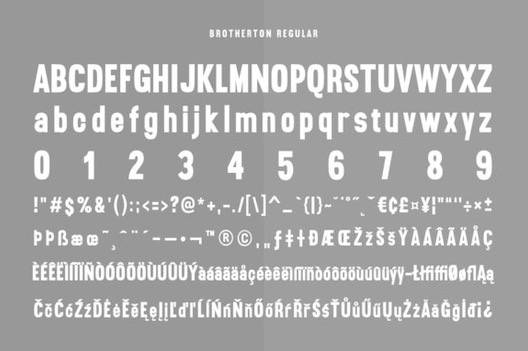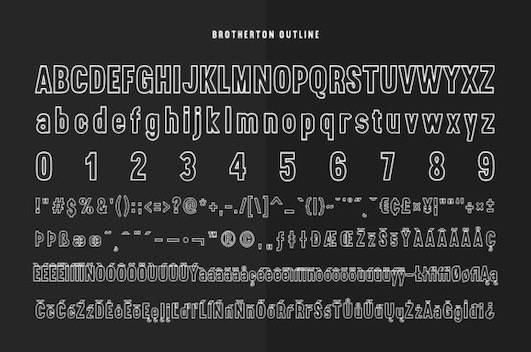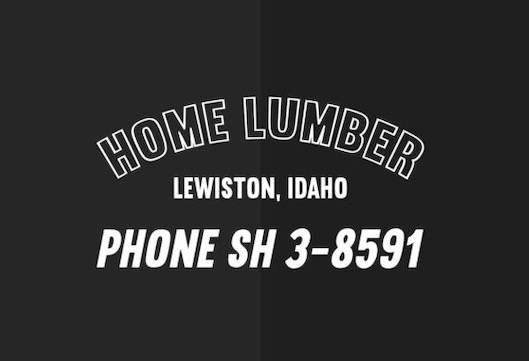
Brotherton Vintage Sans Font
Brotherton font is a vintage elegant sans serif typeface, it was released by Maulana Creative. This sans font is suitable to a wide variety of designs, for its simplicity and clear style, Brotherton has the potential to become designers’ favorite go-to font, no matter the occasion.
This font has a sense of standardization and a rational feeling. Nevertheless, its form has a unique and retro construction, which brings a “vintage-modern” aspect.
Brotherton can easily be matched to a large set of projects. You can add this font to your design ideas and notice how it makes the highlight. This font has a sense of standardization and a rational feeling. Nevertheless, its form has a unique and retro construction, which brings a “vintage-modern” aspect.
This sans font is great for many unique design projects such as advertisements, social media, magazines, branding, logo, album cover, signature, apparel projects, fashion, etc.
Brotherton Vintage Sans Serif Font